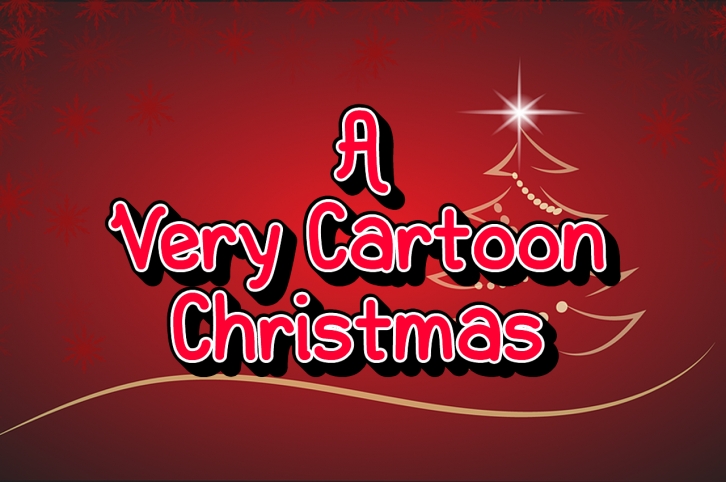
A Very Cartoon Christmas is a handwritten cartoon font designed to evoke the childish wonder of the best day of the year – Christmas! Perfect for use in winter advertisements and designs.